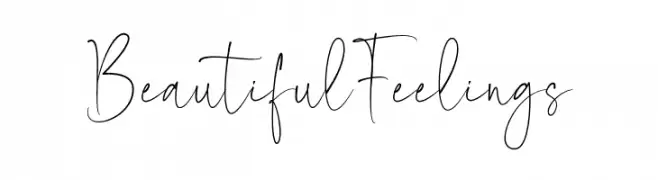
A bold, modern sans-serif font with clean lines and strong readability.
A bold, playful font with rounded edges and a bubbly appearance.
A bold, playful font with rounded, bubble-like characters.
A playful, rounded font with a hand-drawn, friendly appearance.
A bold, blackletter-style font with intricate, historical design elements.
A thin, elegant handwritten script with tall, airy letterforms.
A pixelated, retro-style font with a blocky, grid-like appearance.
A bold, modern font with rounded edges and a strong industrial feel.
A modern, sleek font with smooth curves and a futuristic aesthetic.